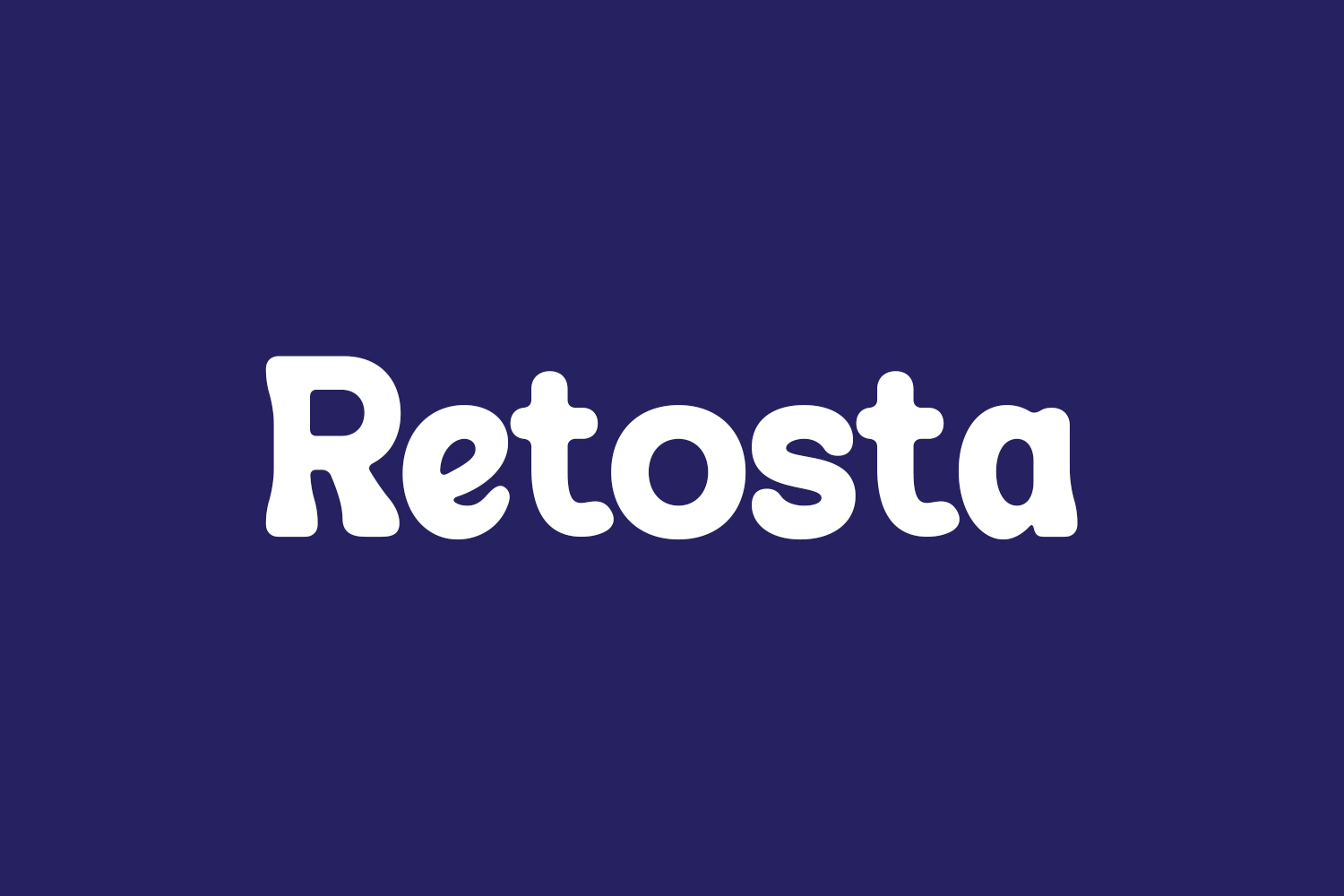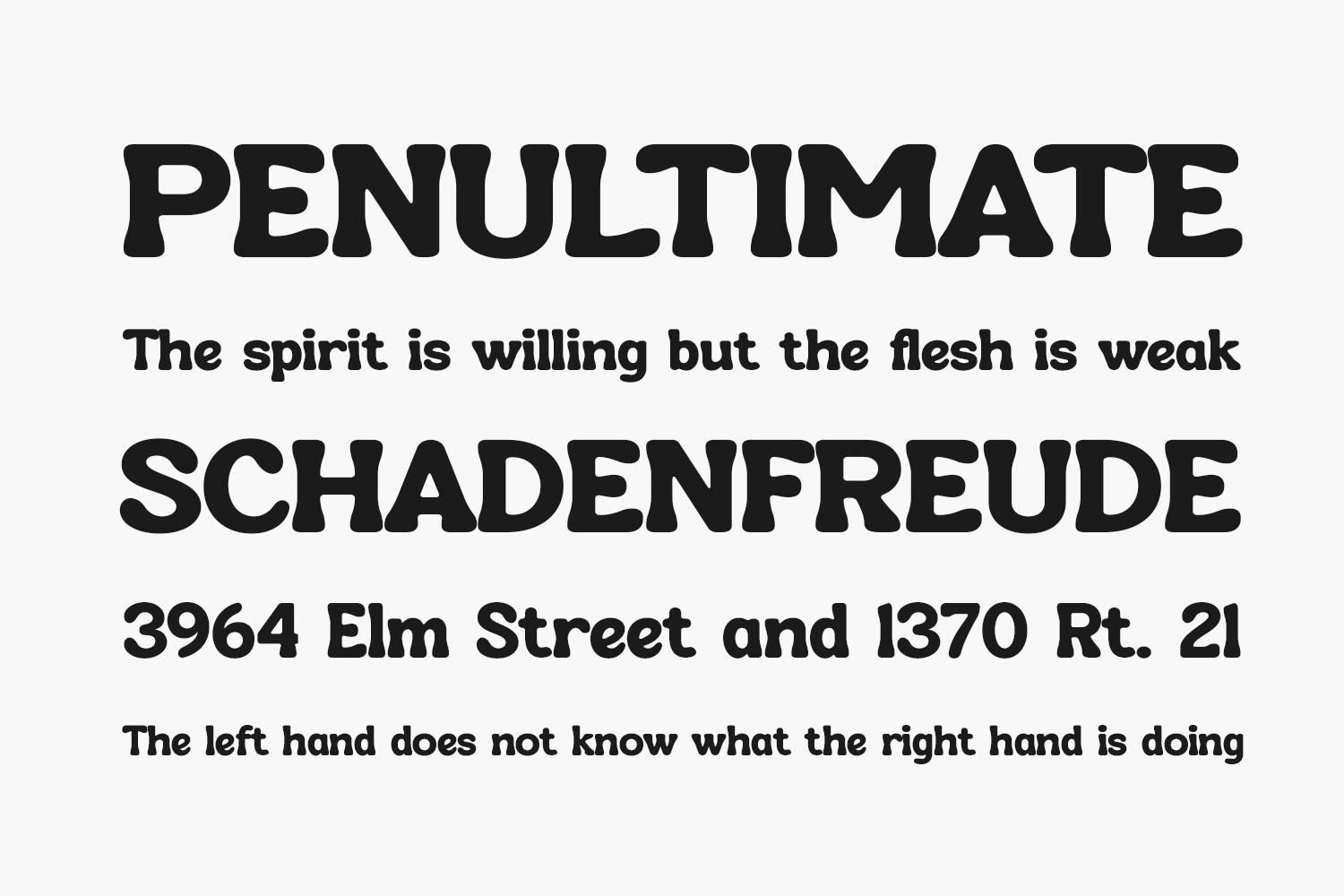
Retosta Free Font is a chic display typeface exuding an elegant vintage charm. Ideal for branding, logos, labels, posters, or any project seeking a sophisticated retro aesthetic. Download the font for free if you need it for personal use or purchase the full version for commercial use.